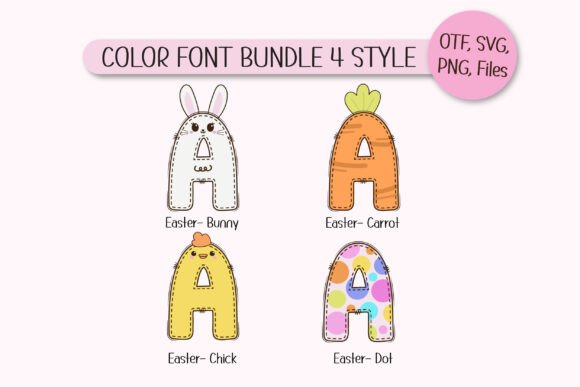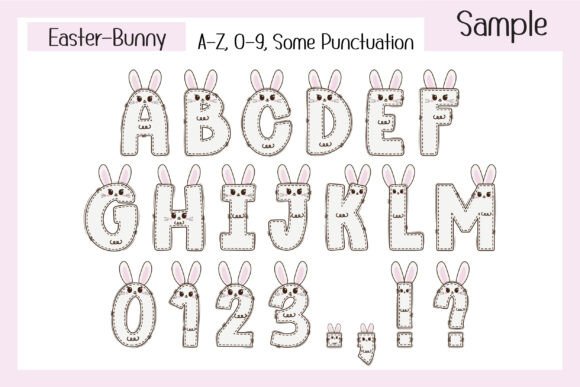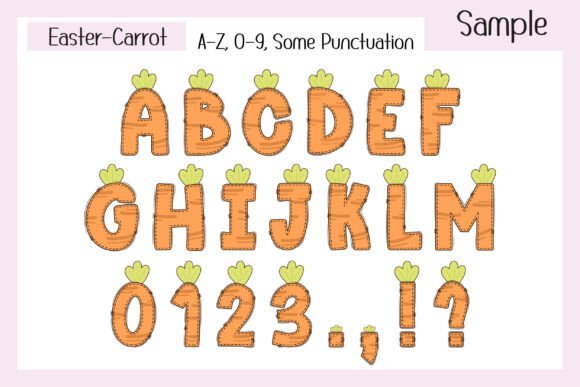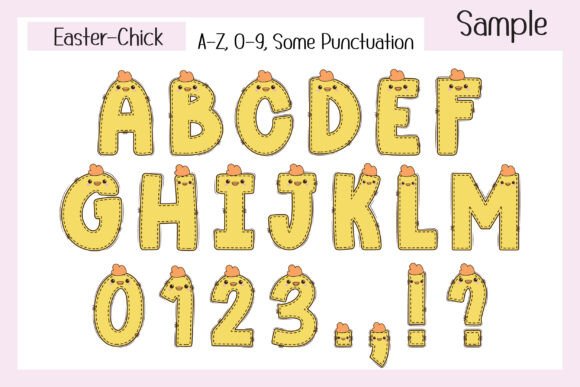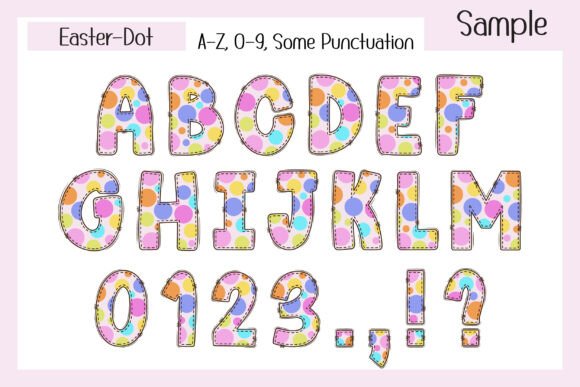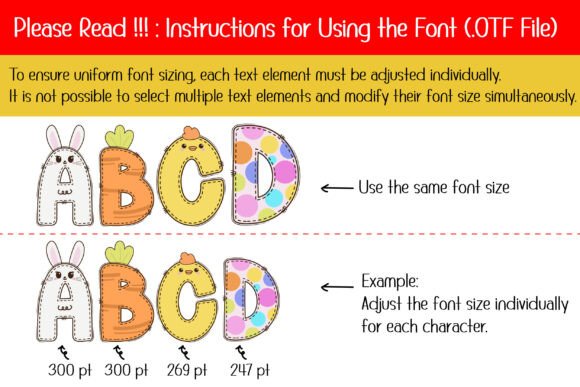
Introducing Easter Font: A Playful and Whimsical Typeface for Your Holiday Designs
Are you looking for a font that embodies the fun and festive spirit of Easter? Look no further than Easter Font, a vibrant 4-color font that perfectly captures the playful essence of the Easter festival. With its delightful use of Easter animal characters and whimsical design elements, this font is sure to bring a burst of festive cheer to all your holiday projects.
A Font that’s Egg-stra Special
Easter Font is not just any ordinary font. It’s a carefully crafted typeface that combines the joy of Easter with a playful and modern design. The font features a range of delightful Easter animal characters, including bunnies, chicks, and eggs, which are sure to add a touch of whimsy to your designs. Whether you’re creating Easter Day posters, inspiring quotes, T-shirt designs, or custom names, Easter Font is the perfect choice.
What Sets Easter Font Apart
So, what makes Easter Font so special? Here are just a few features that set it apart:
- 4-Color Font: Easter Font is a vibrant 4-color font that adds a pop of color to your designs.
- Easter Animal Characters: The font features a range of adorable Easter animal characters, including bunnies, chicks, and eggs.
- Whimsical Design Elements: Easter Font includes a range of whimsical design elements, such as flowers, ribbons, and more.
Perfect for Kid-Friendly Designs
Easter Font is a funny and cute font that’s ideal for kid-friendly designs. The font’s playful and whimsical design makes it perfect for creating Easter-themed crafts, posters, and other projects that kids will love. Whether you’re a parent, teacher, or designer, Easter Font is a great choice for any kid-friendly project.
With Easter Font, the design possibilities are endless. Here are just a few ideas to get you started:
- Easter Day Posters: Create eye-catching Easter Day posters that feature the font’s playful Easter animal characters.
- Inspiring Quotes: Use Easter Font to create inspiring quotes that feature the font’s whimsical design elements.
- T-Shirt Designs: Design fun and festive Easter-themed T-shirts that feature the font’s adorable Easter animal characters.
- Custom Names: Use Easter Font to create custom names that feature the font’s playful design elements.
- DIY Craft Projects: Use Easter Font to add a personal touch to your DIY craft projects, such as Easter baskets, cards, and more.
Elevate Your Holiday Projects
Get Creative with Easter Font
Ready to get creative with Easter Font? Here are a few tips to help you get started:
- Experiment with Colors: Don’t be afraid to experiment with different color combinations to bring your designs to life.
- Mix and Match: Mix and match the font’s different design elements to create unique and eye-catching designs.
- Add Your Own Twist: Add your own twist to the font’s design elements to make your projects truly one-of-a-kind.